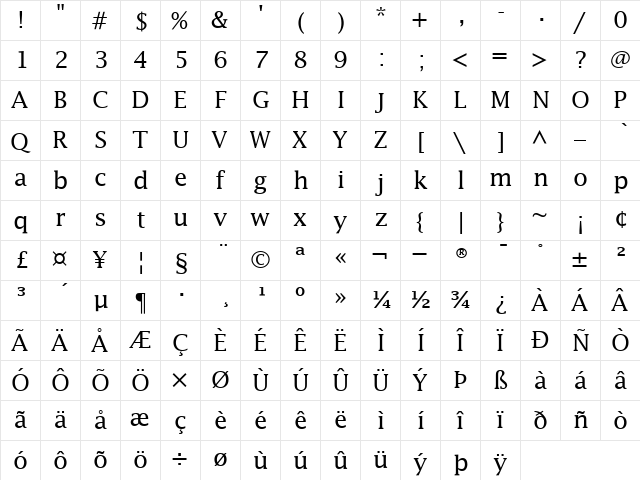
LucidaRoman Roman
Design Context for LucidaRoman Typeface
LucidaRoman offers clean, dependable letterforms without strong stylistic allegiance, making it a practical choice for designers who need flexibility.
Pro Tip: Use LucidaRoman in both headline and body roles to test its range before committing to a single application.